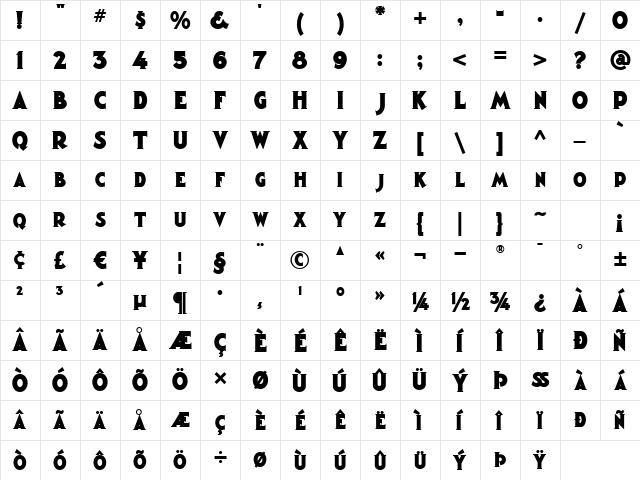
Complete MagicLantern ExtraBold glyph index. Displaying only characters natively supported by MagicLantern ExtraBold font.
MagicLantern is a composed and adaptable typeface that performs quietly and consistently across a wide range of design contexts. Its bold stroke weight gives it real presence on the page.